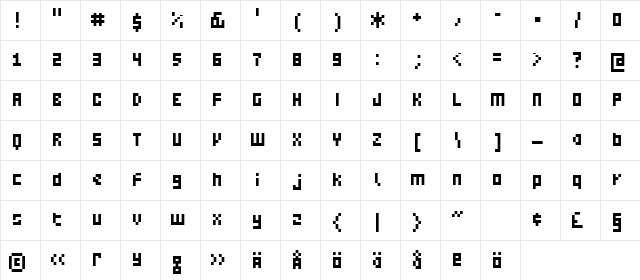
Small Talk Regular Free Font
Small Talk Regular
Small Talk Family
Design Context for Small Talk
Small Talk is a composed and adaptable typeface that performs quietly and consistently across a wide range of design contexts.